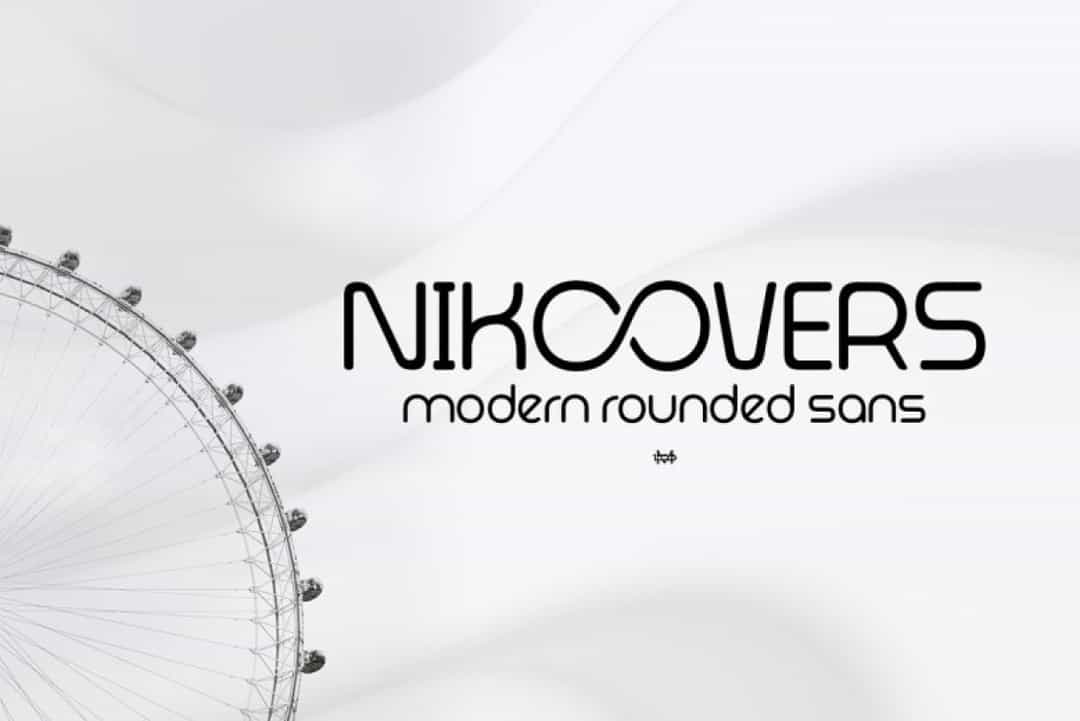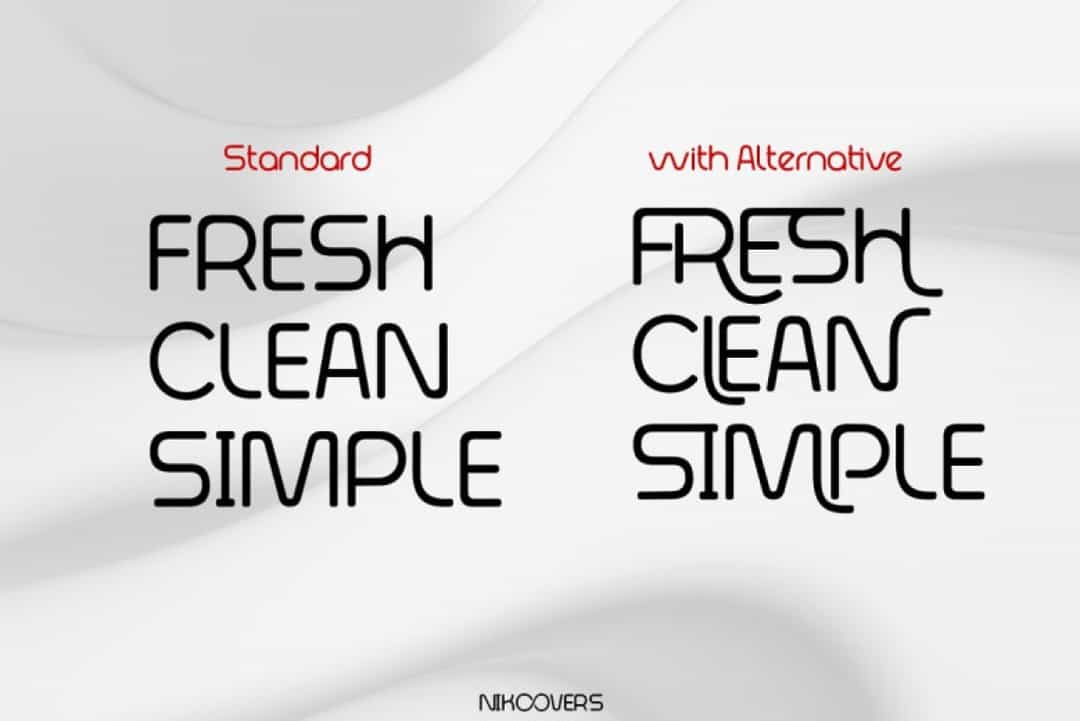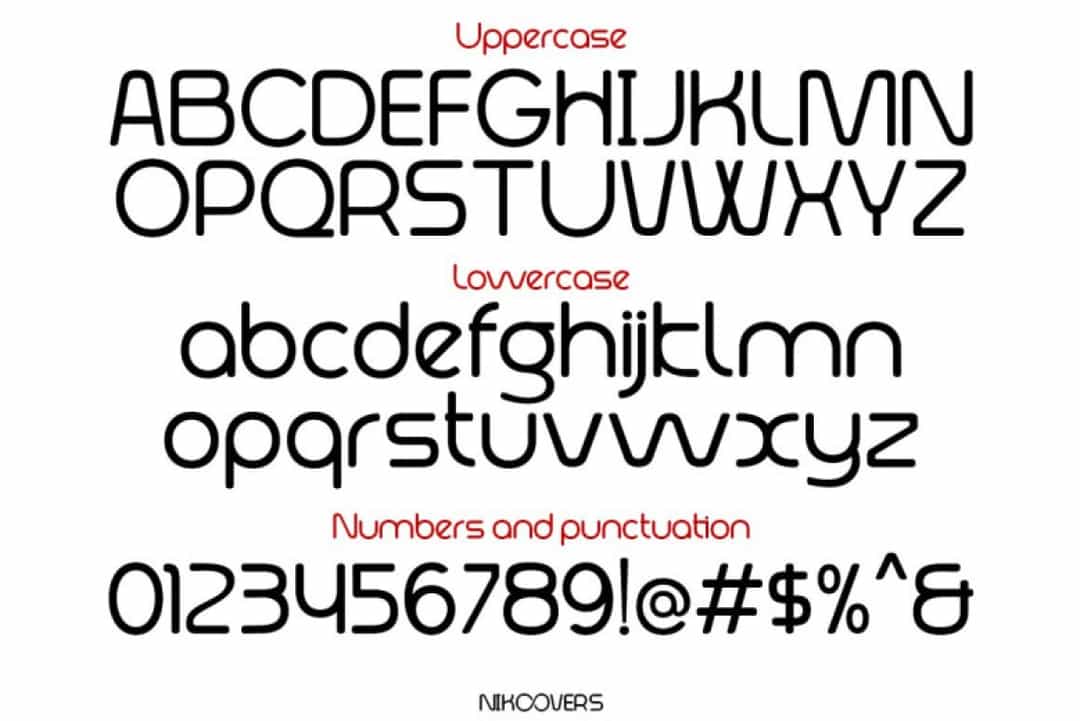
Nikooversis a modern round sans typeface that exudes simplicity and adaptability, perfect for use in corporate branding or editorial layouts. It features clean geometric letterforms perfect for design purposes including corporate identity projects.